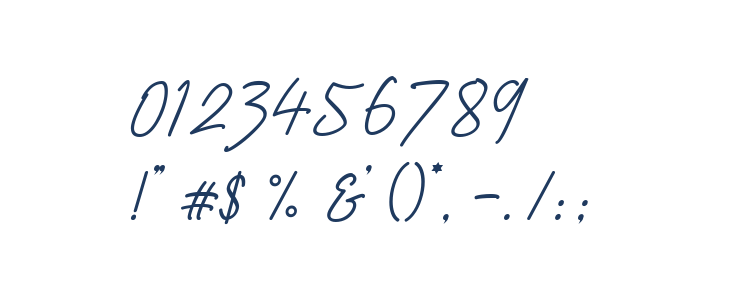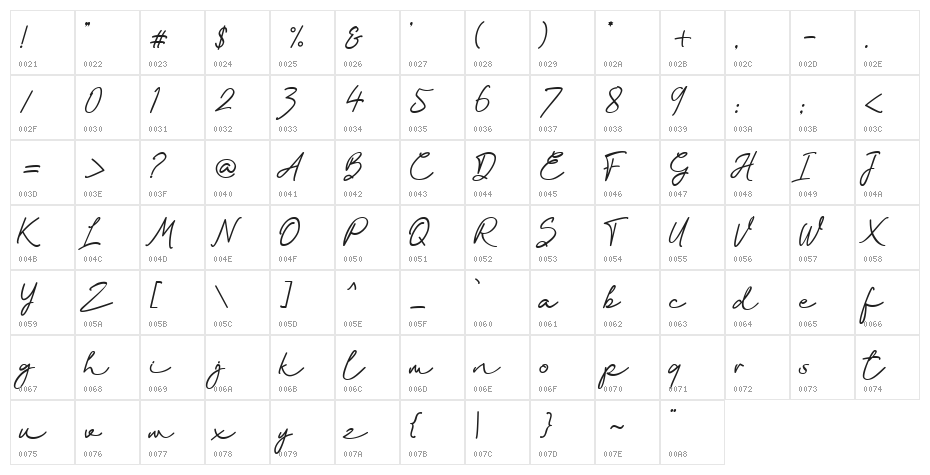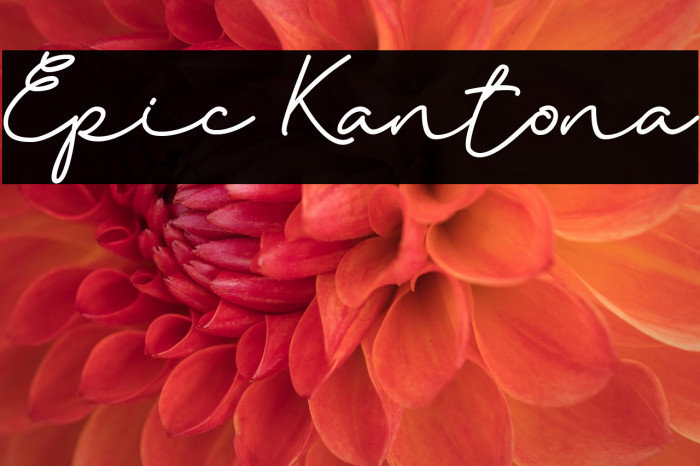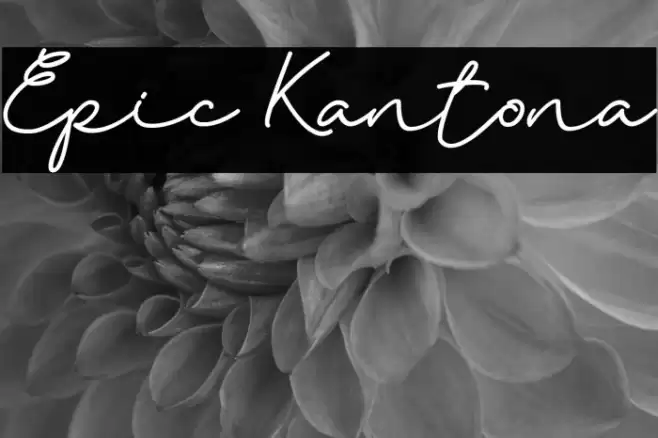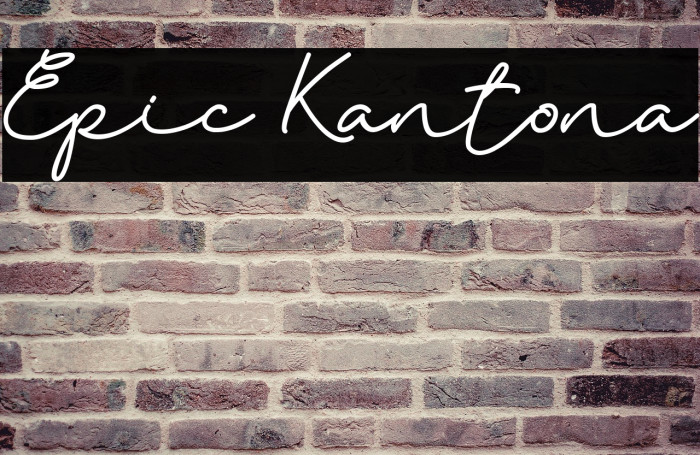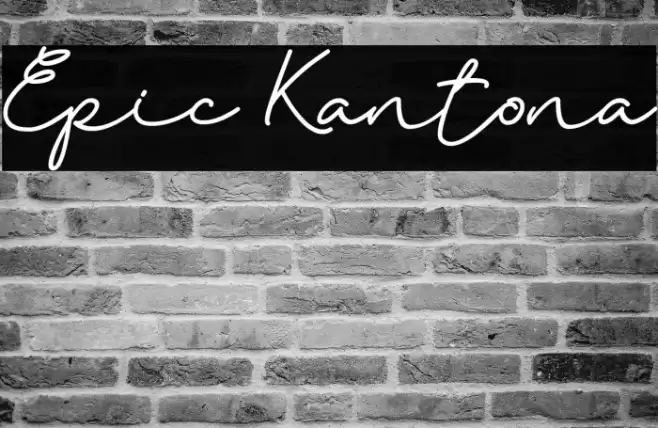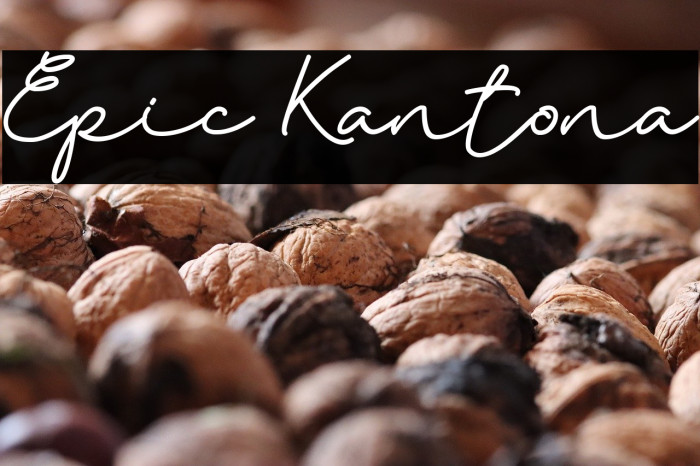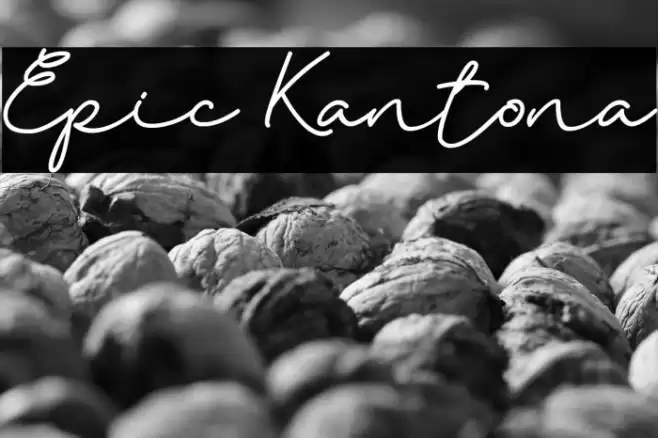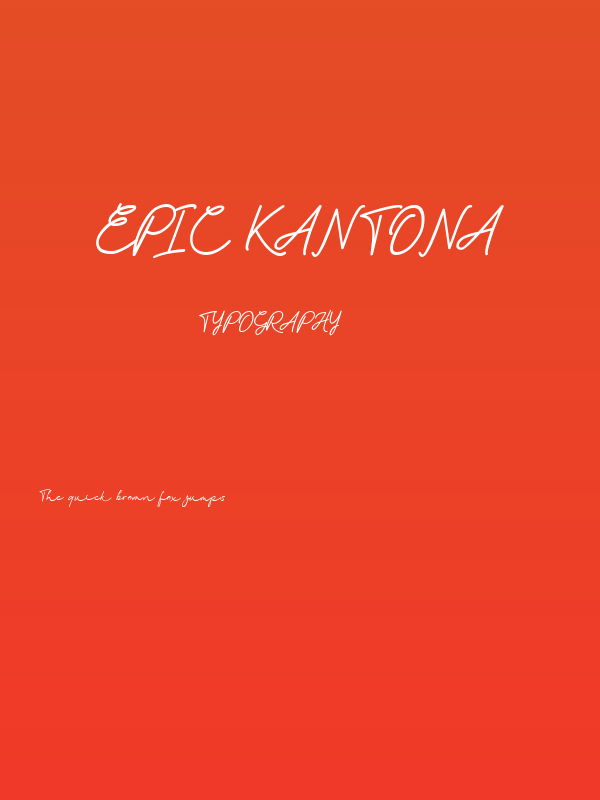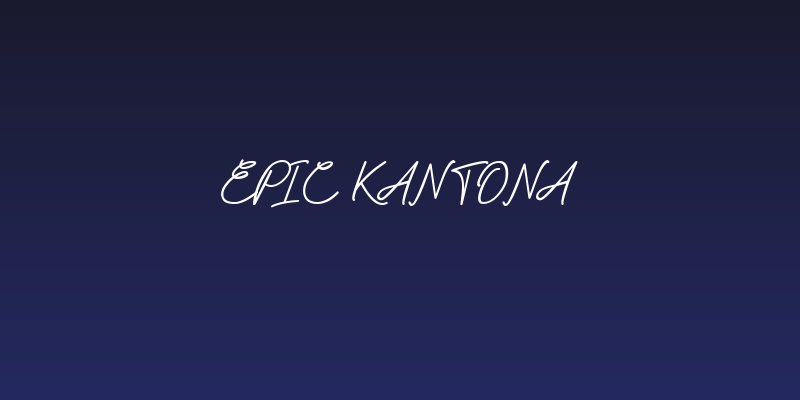
Epic Kantona Font
Epic Kantona Description
This font features a flowing, cursive style that mimics natural handwriting, characterized by smooth, continuous strokes and a slight slant to the right. The uppercase letters are elegantly looped and connected, while the lowercase letters maintain a consistent flow, enhancing readability. The numerals and special characters are crafted with the same fluidity, ensuring a cohesive look across all elements. This script style exudes a sense of elegance and personal touch, making it suitable for a variety of creative applications.
| Proposed Projects | Ideal for wedding invitations, greeting cards, personal branding, and artistic projects that require a personal touch. |